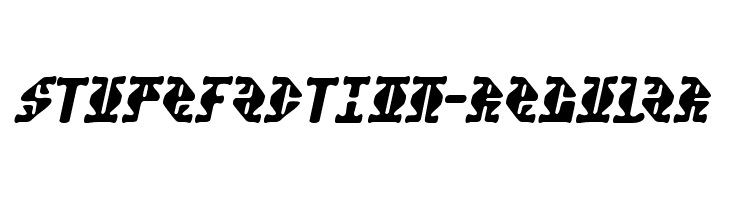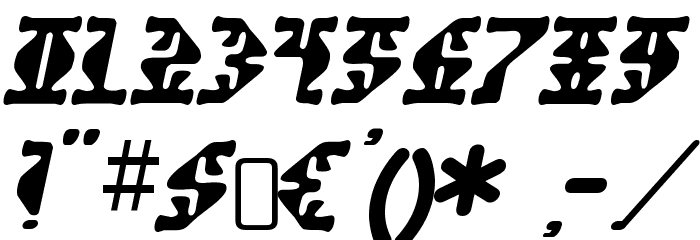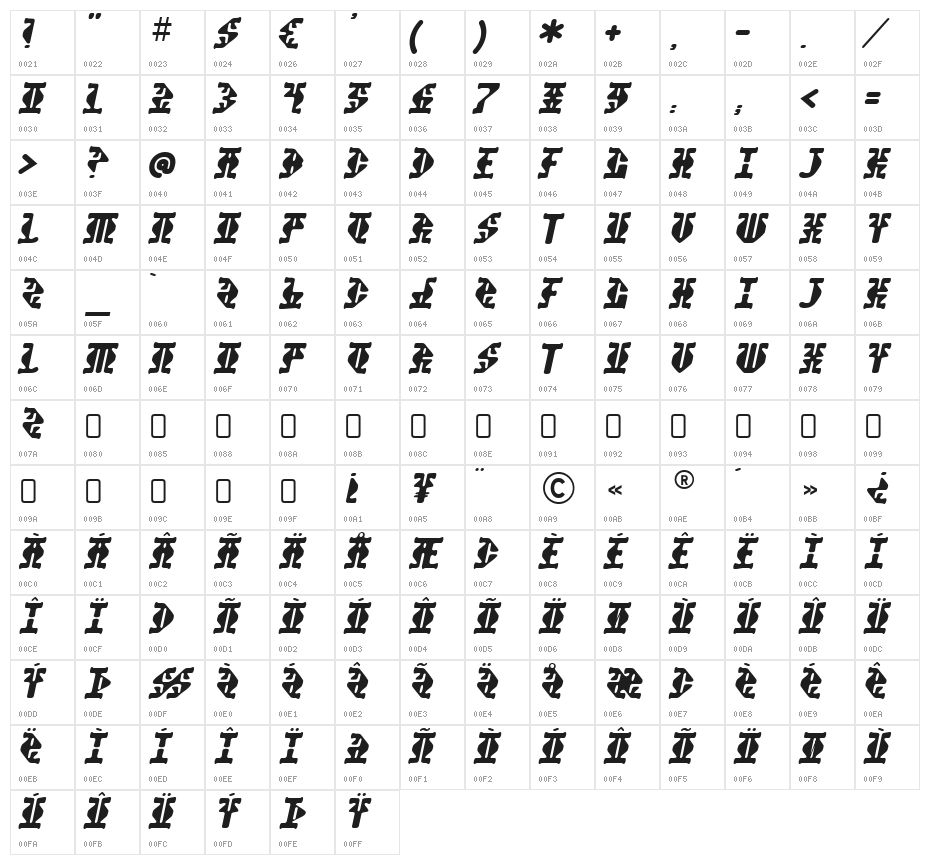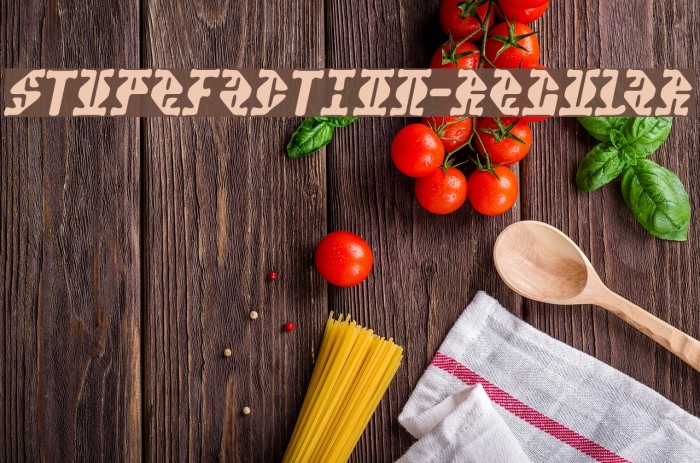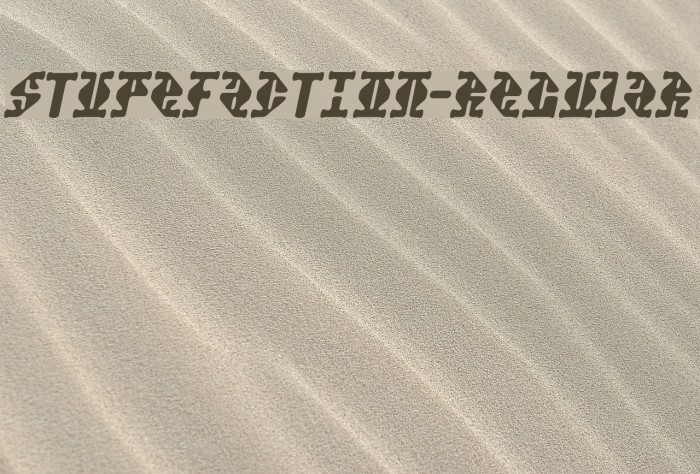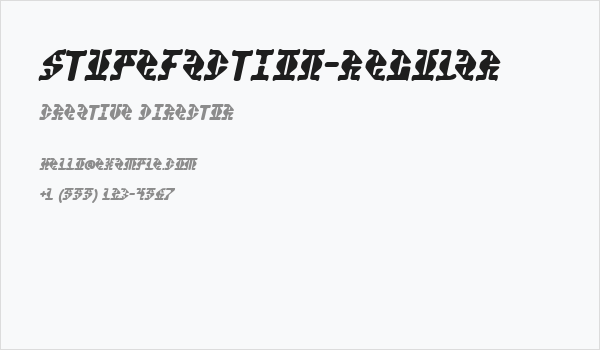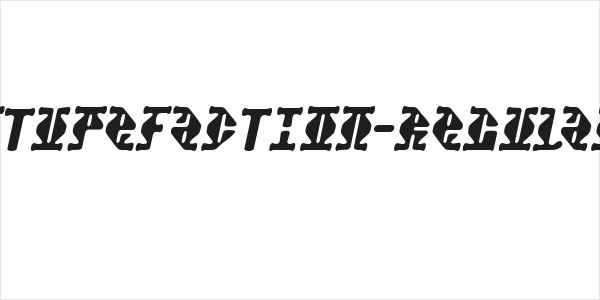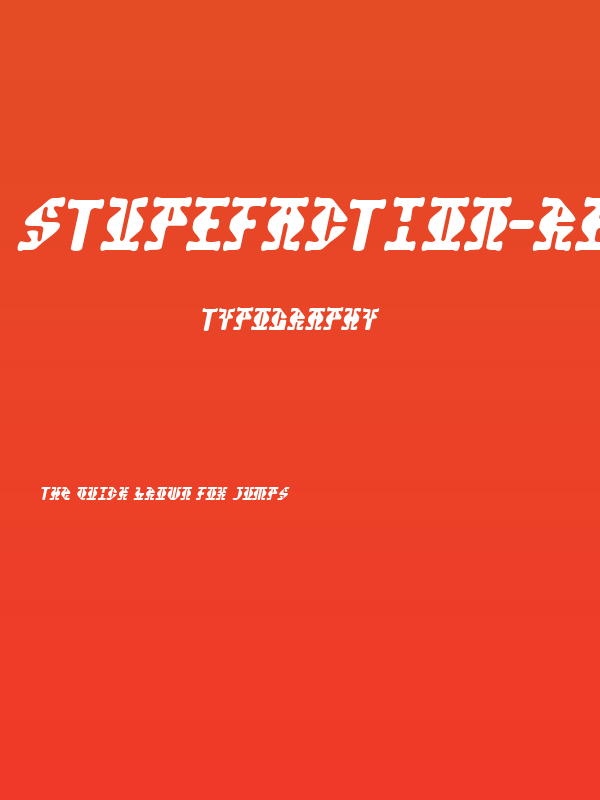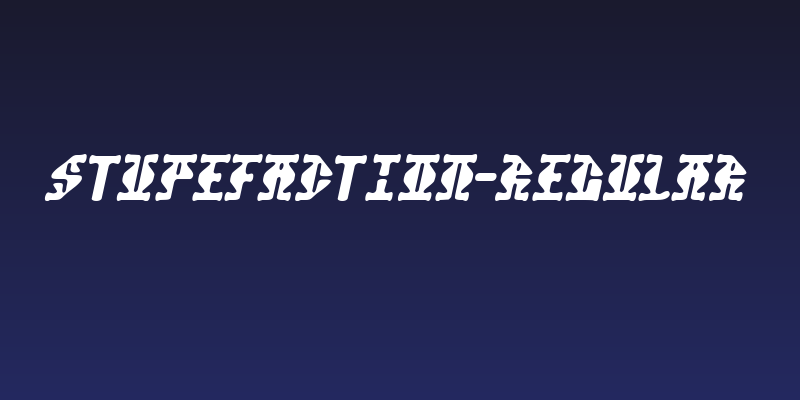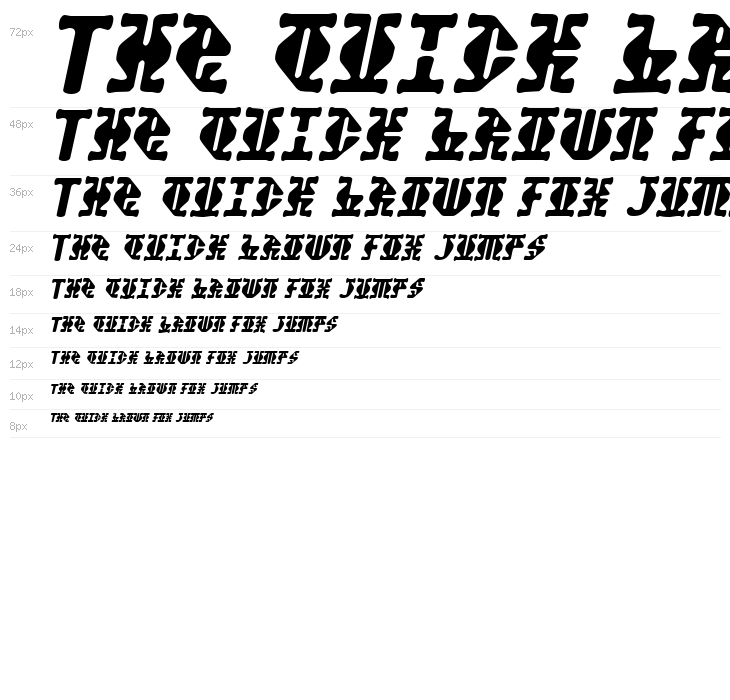
Stupefaction-Regular Font
Stupefaction-Regular Description
This font features a bold and striking design with a strong, decorative style. The characters are heavily stylized with sharp angles and thick strokes, creating a sense of movement and energy. The uppercase and lowercase letters maintain a consistent design, with unique embellishments that give each character a distinct appearance. The numbers and special characters are equally bold, matching the overall aesthetic of the alphabet. This font is ideal for projects that require a dramatic and eye-catching typeface.
| Proposed Projects | Ideal for posters, logos, and branding materials that need a dramatic and eye-catching typeface. |